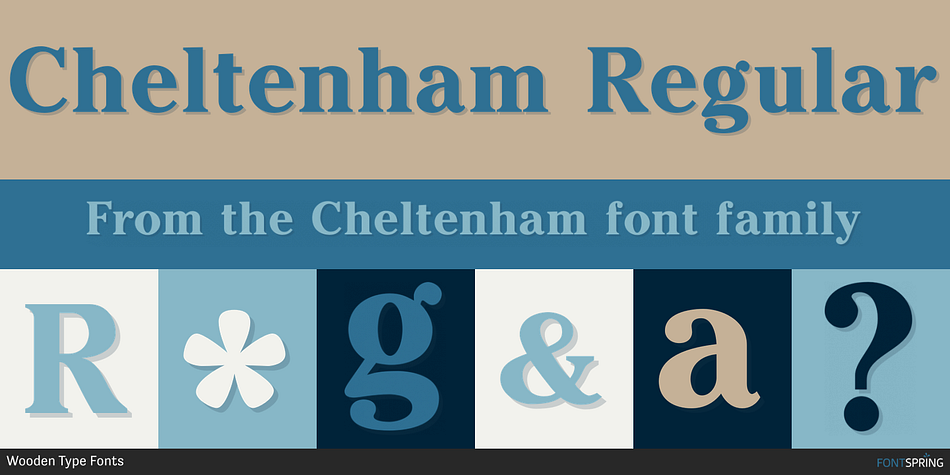
Cheltenham Regular
Designed by Jordan Davies, Cheltenham is a serif font published by Wooden Type Fonts.
Cheltenham is based on the design by M. F Benton for American Type Founders, circa 1896.